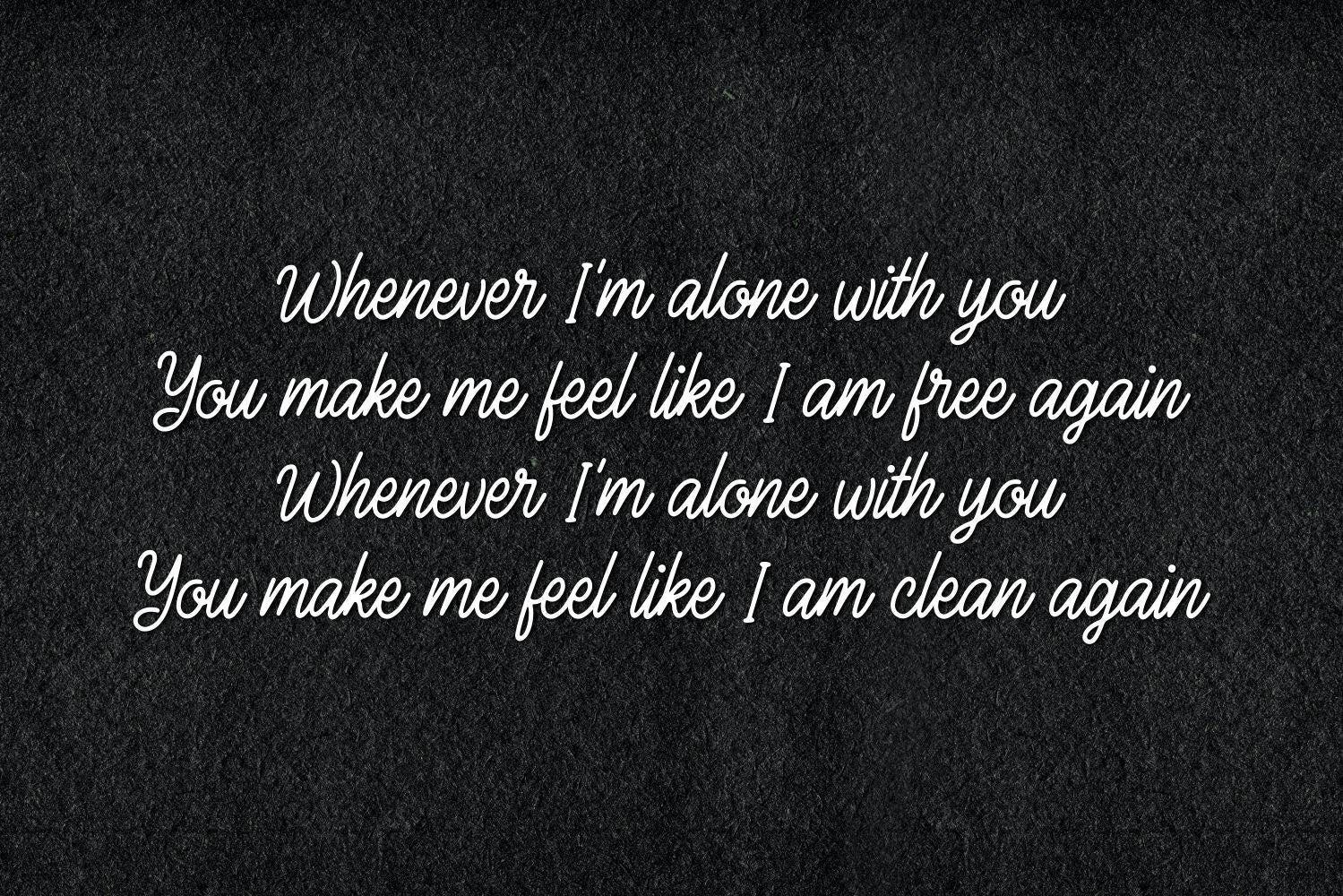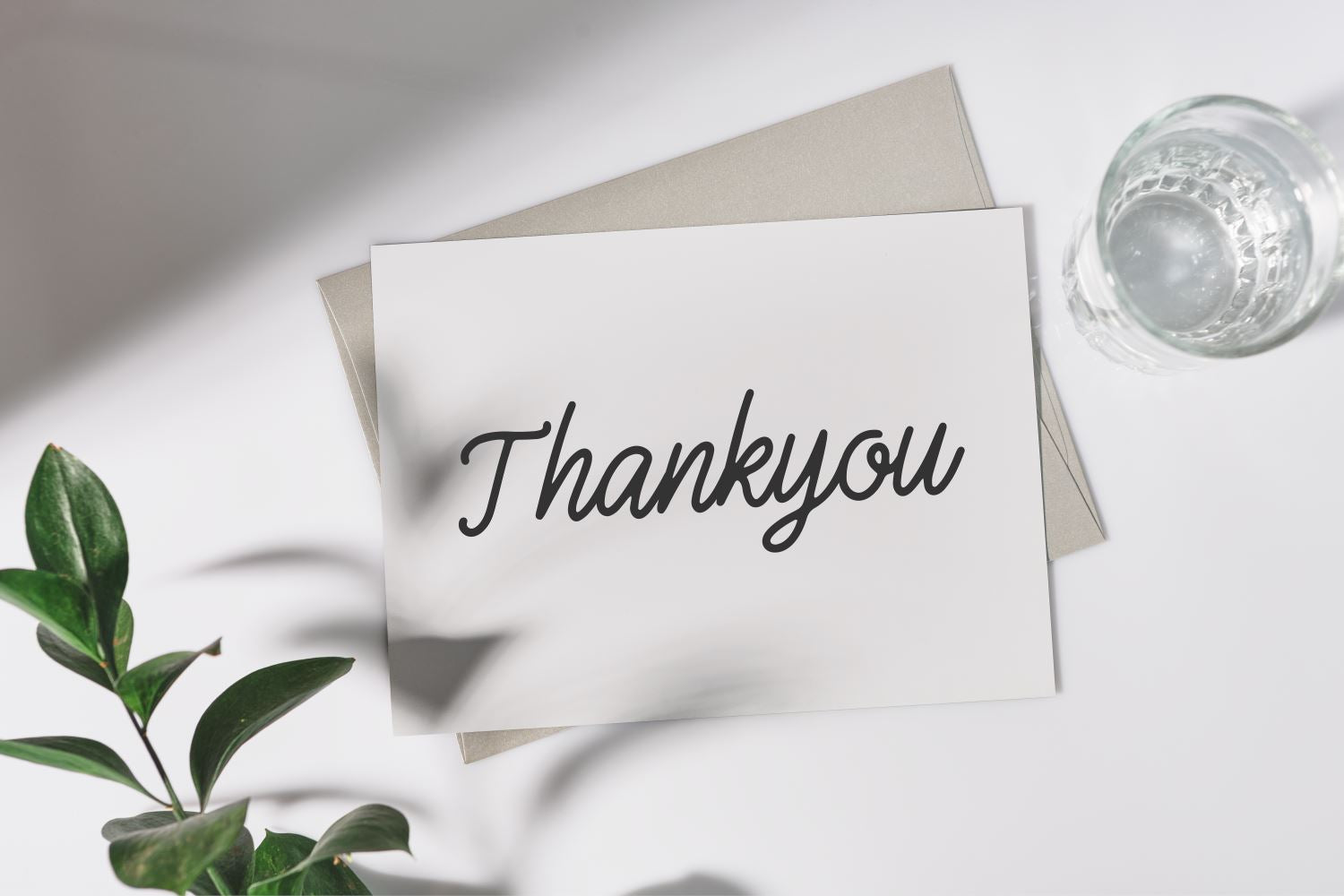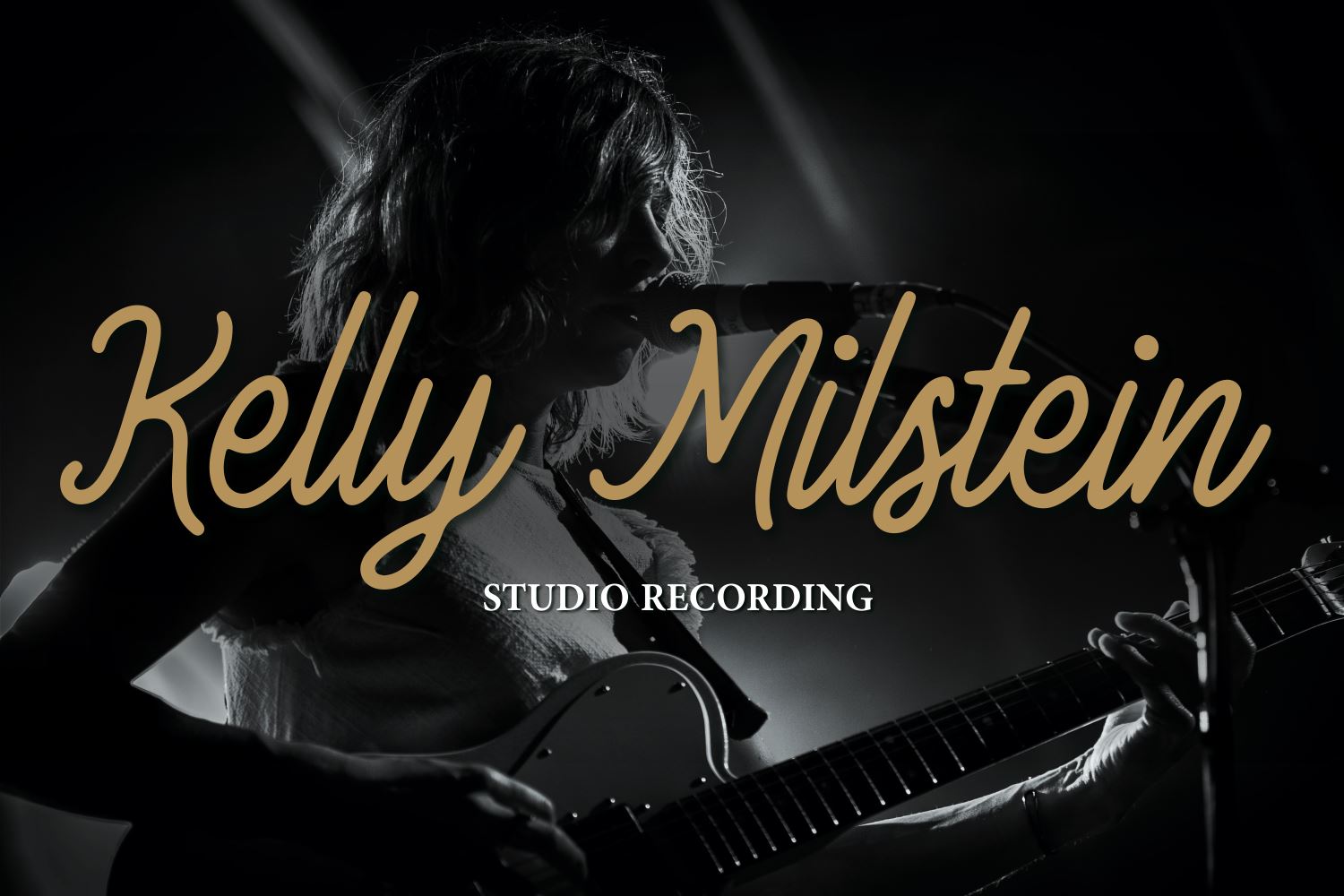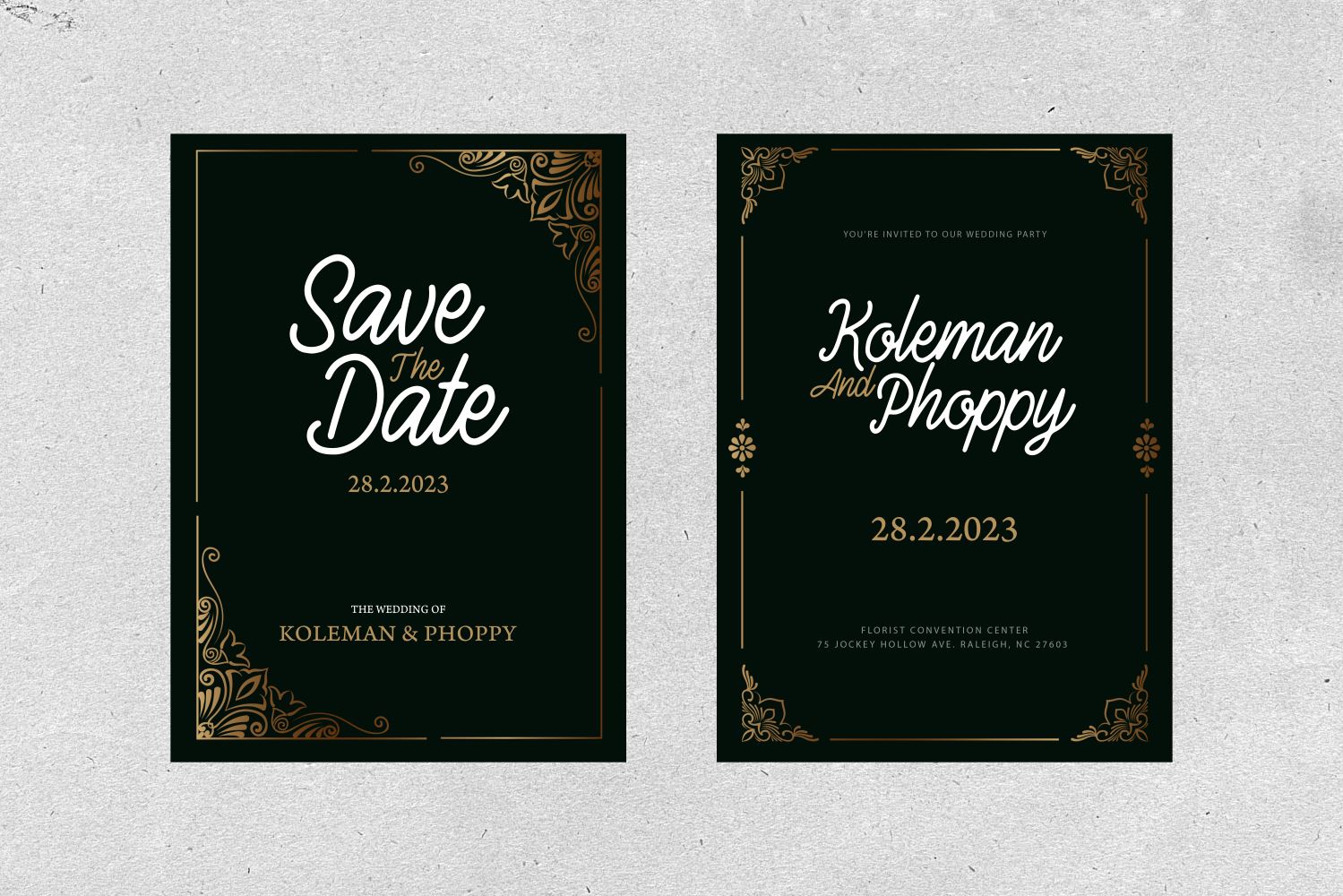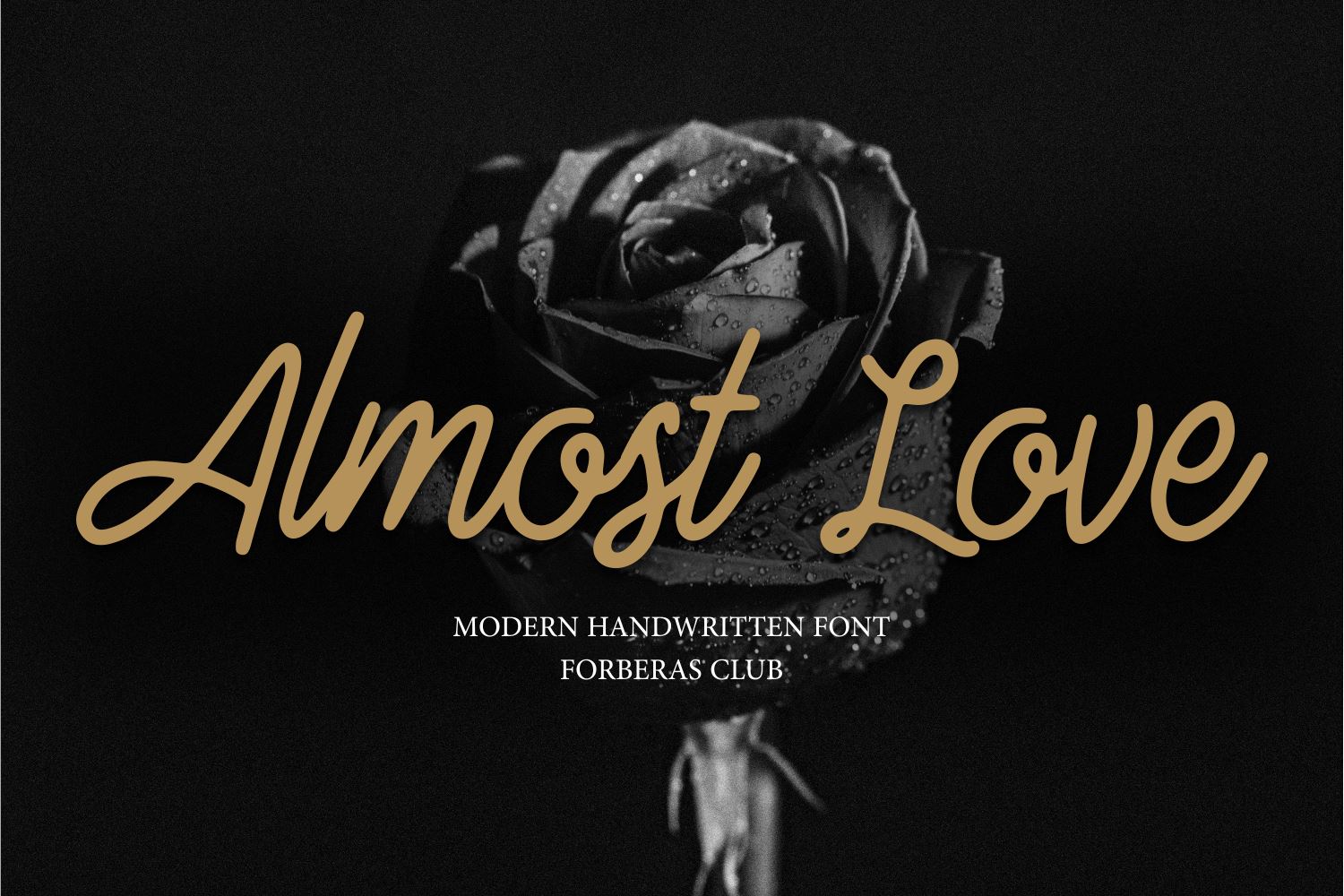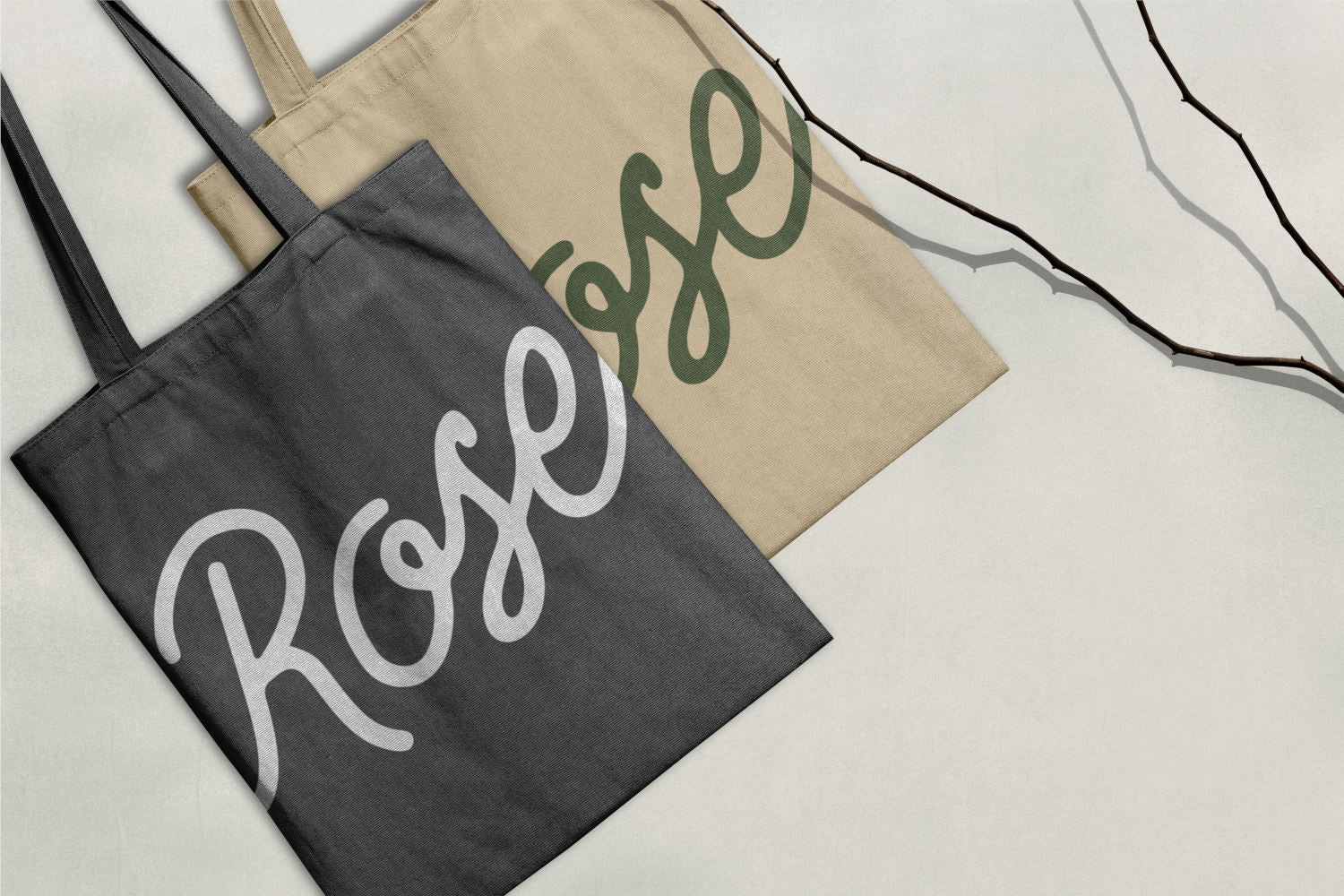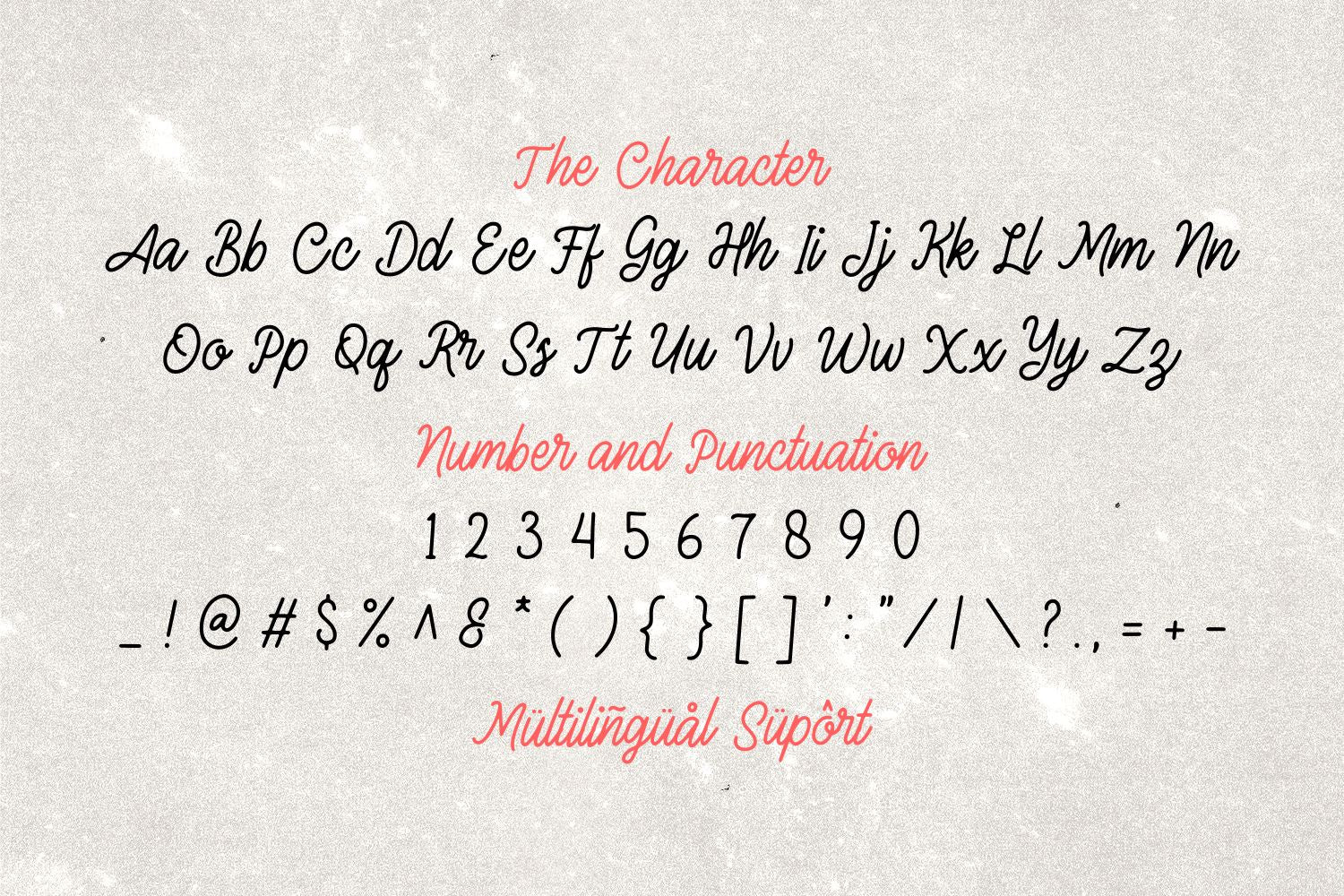
Almost Love
Introducing Almost Love Font by Forberas Club Almost Love is a Modern Handwritten Font. Almost Love is perfect for book cover, product packaging, branding project, megazine, social media, kisd book fonts, or just used to express words above the background. This font includes TTF and OTF, This font also multilingual support.